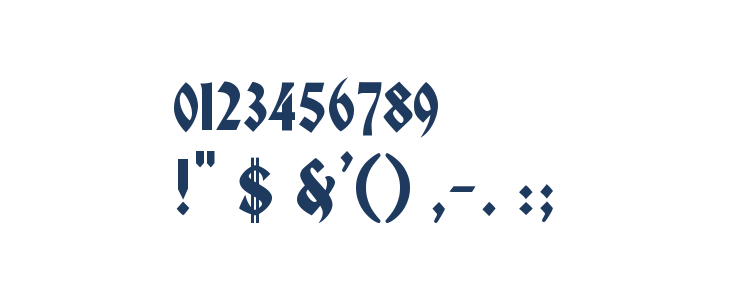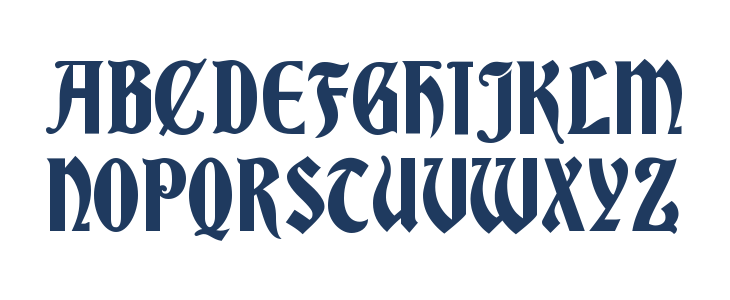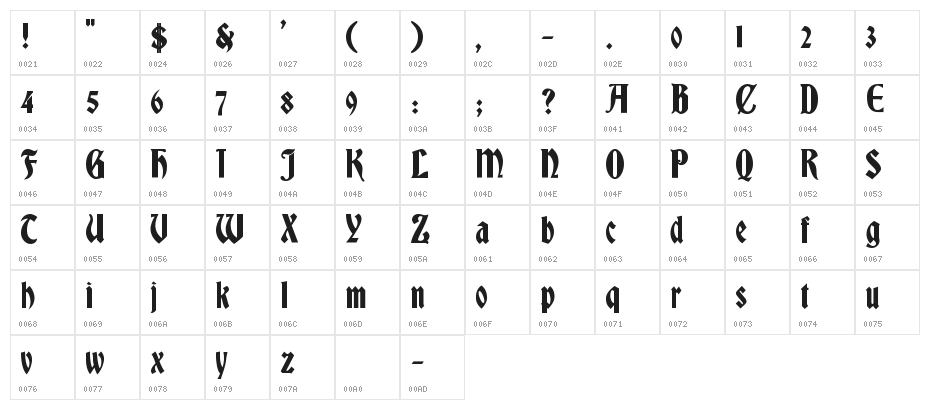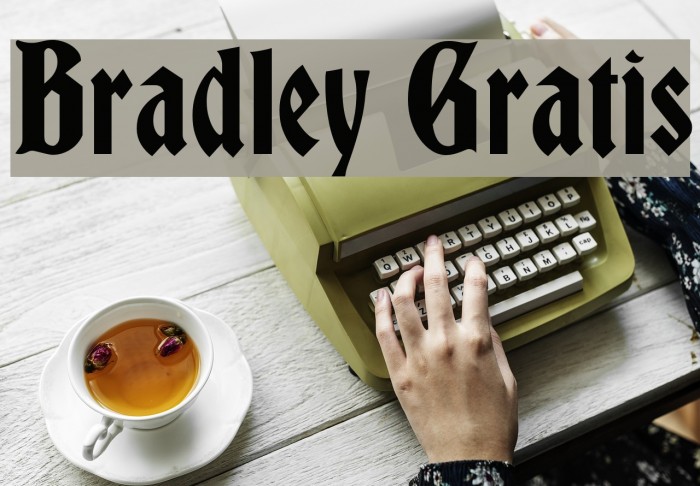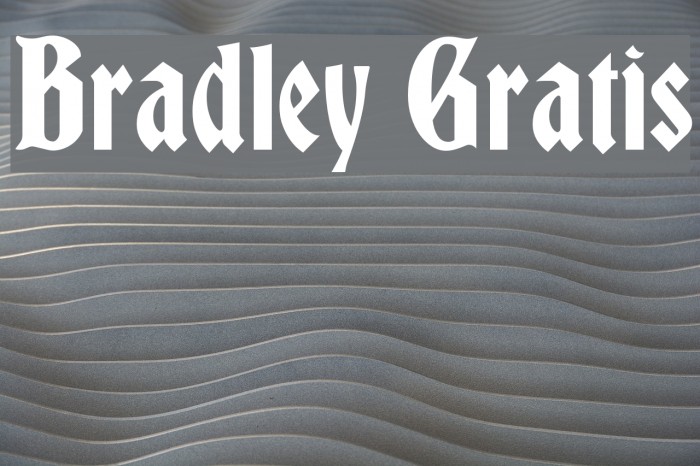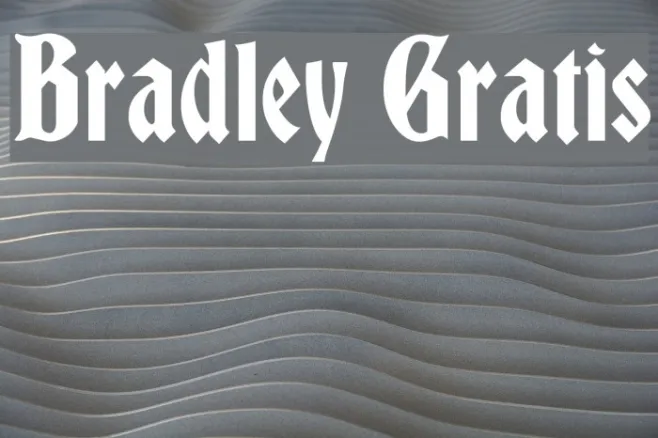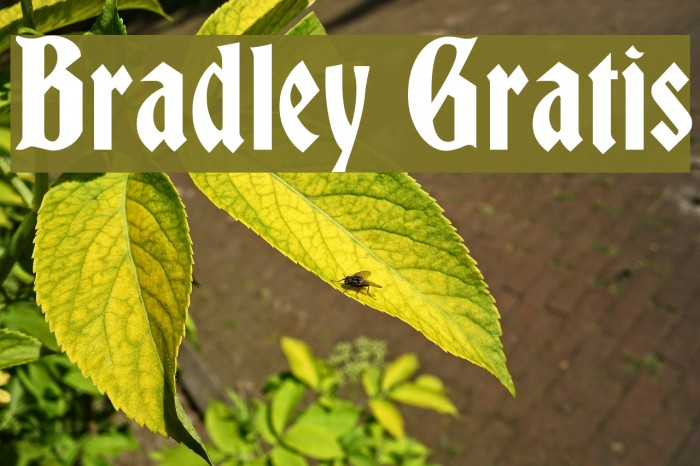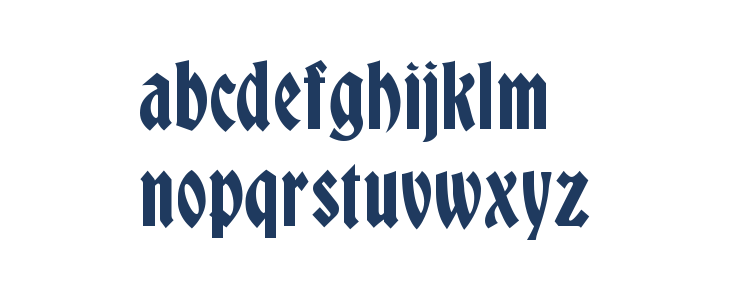
Bradley Gratis Font
Bradley Gratis Description
This font exhibits a bold and dramatic style, reminiscent of traditional blackletter typography. Its characters are characterized by sharp, angular lines and a strong presence, making it highly decorative. The uppercase letters are particularly striking, with intricate details and a sense of historical elegance. The lowercase letters maintain the same boldness, ensuring consistency across the typeface. Numbers and special characters are equally stylized, contributing to the overall cohesive look. This font is ideal for projects that require a touch of medieval or gothic flair, offering a sense of tradition and authority.
| Use Case | Headlines, Logos, Decorative text |
| Proposed Projects | Suitable for historical documents, event posters, book covers, and branding that requires a gothic or medieval touch. |